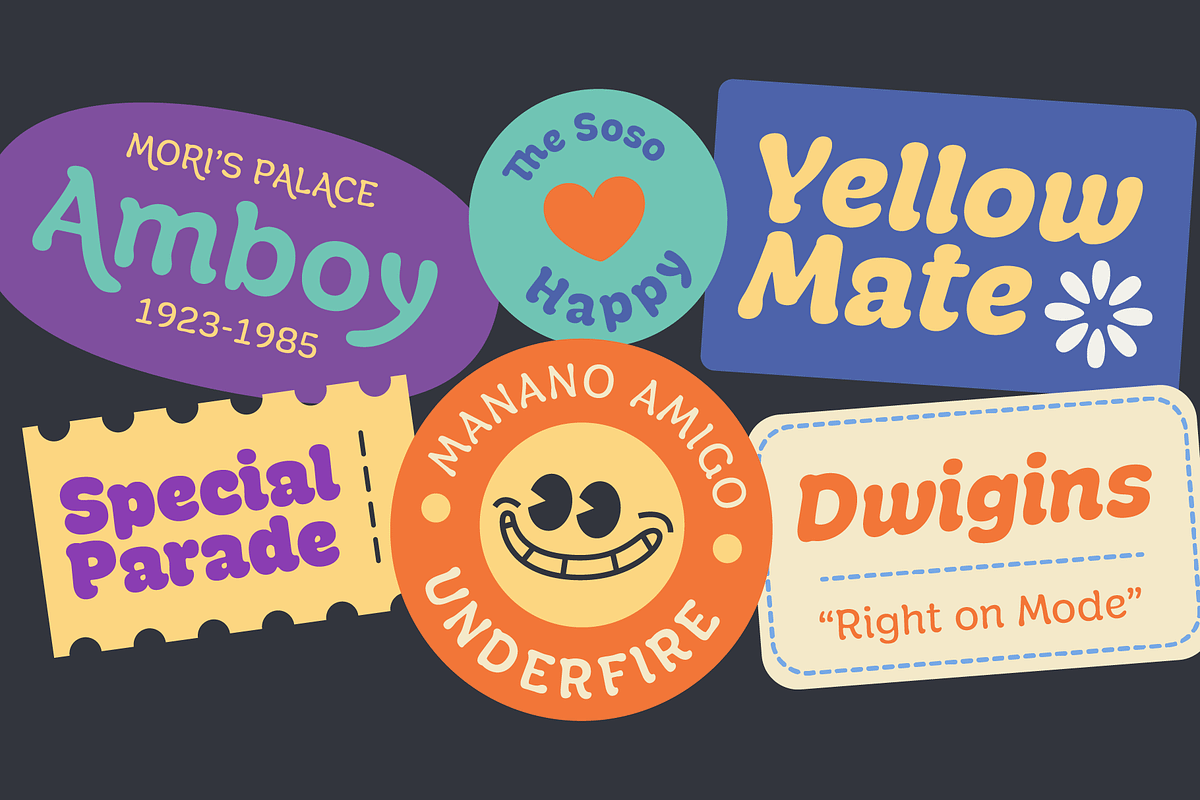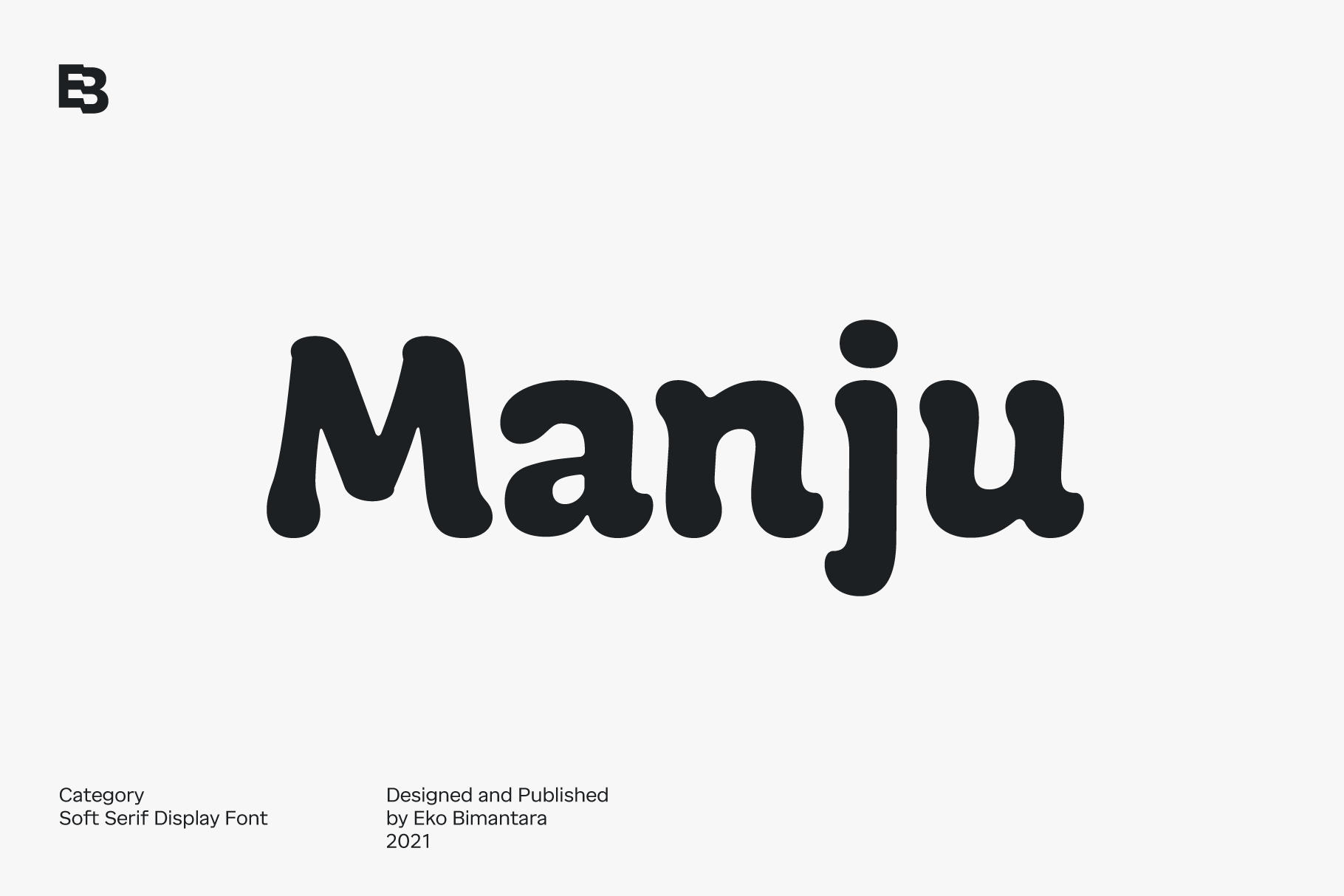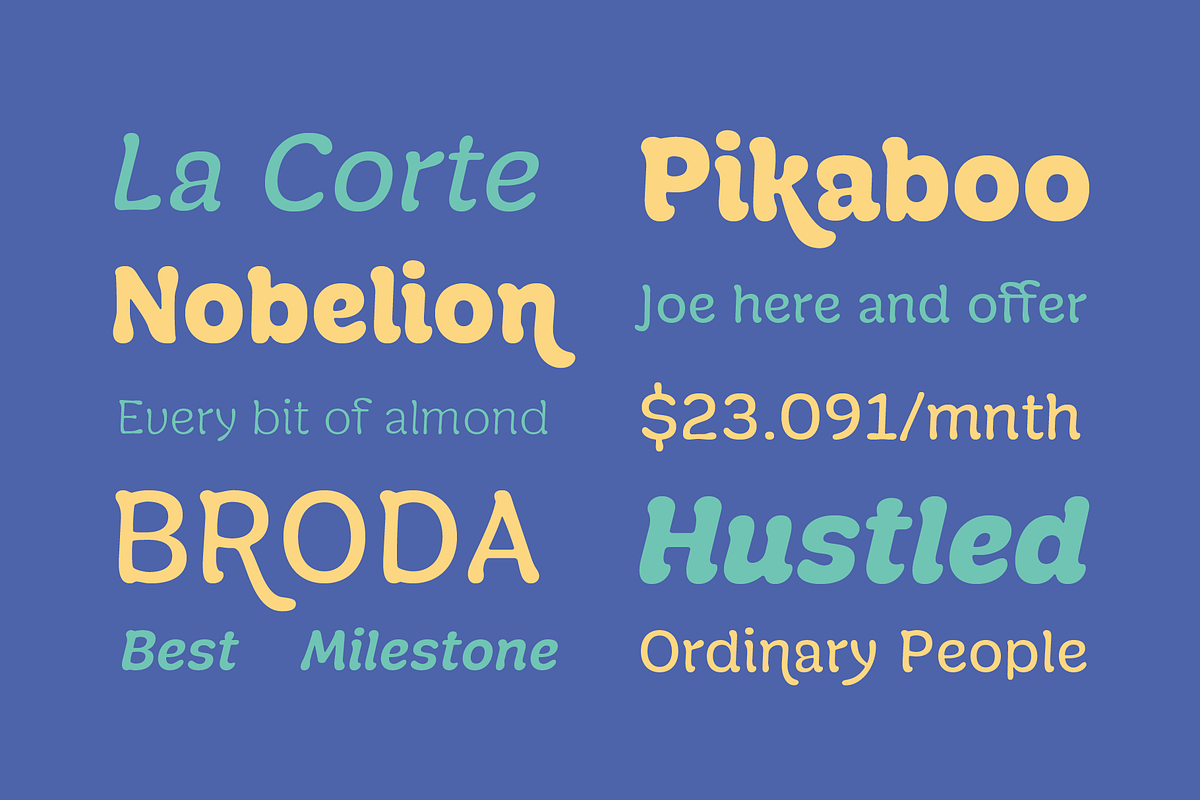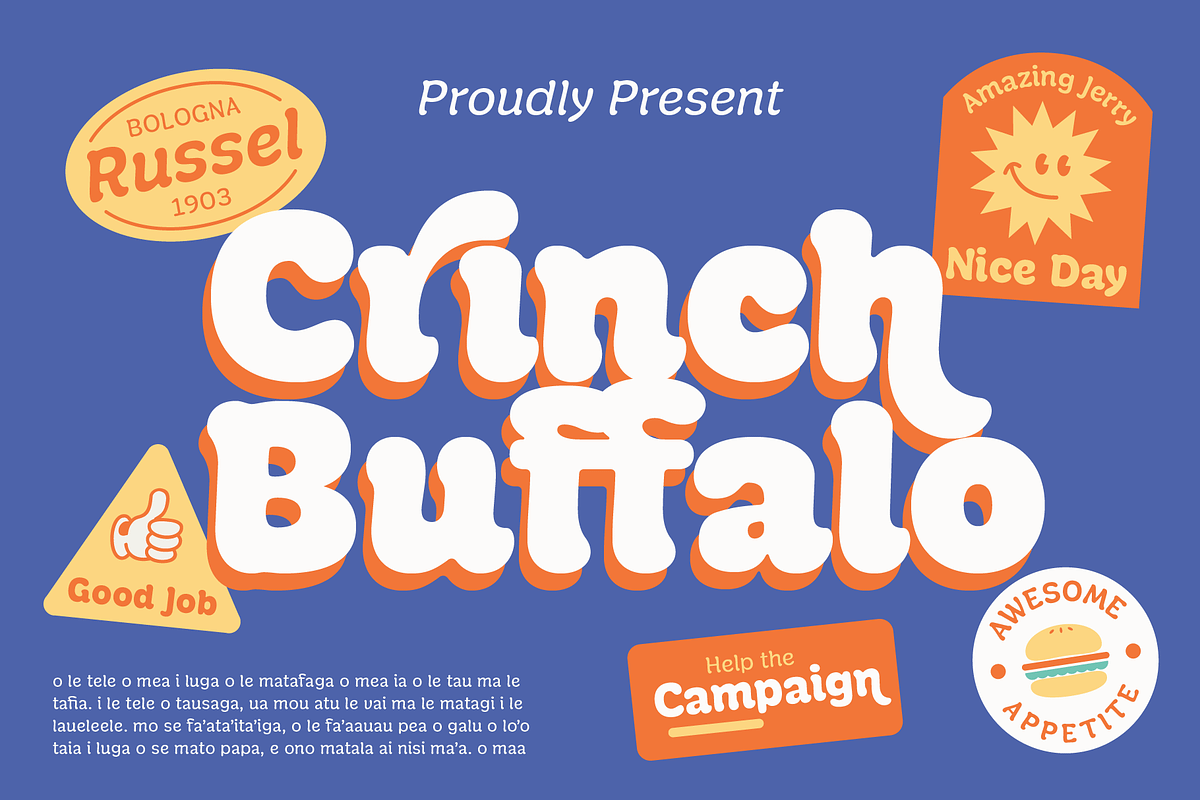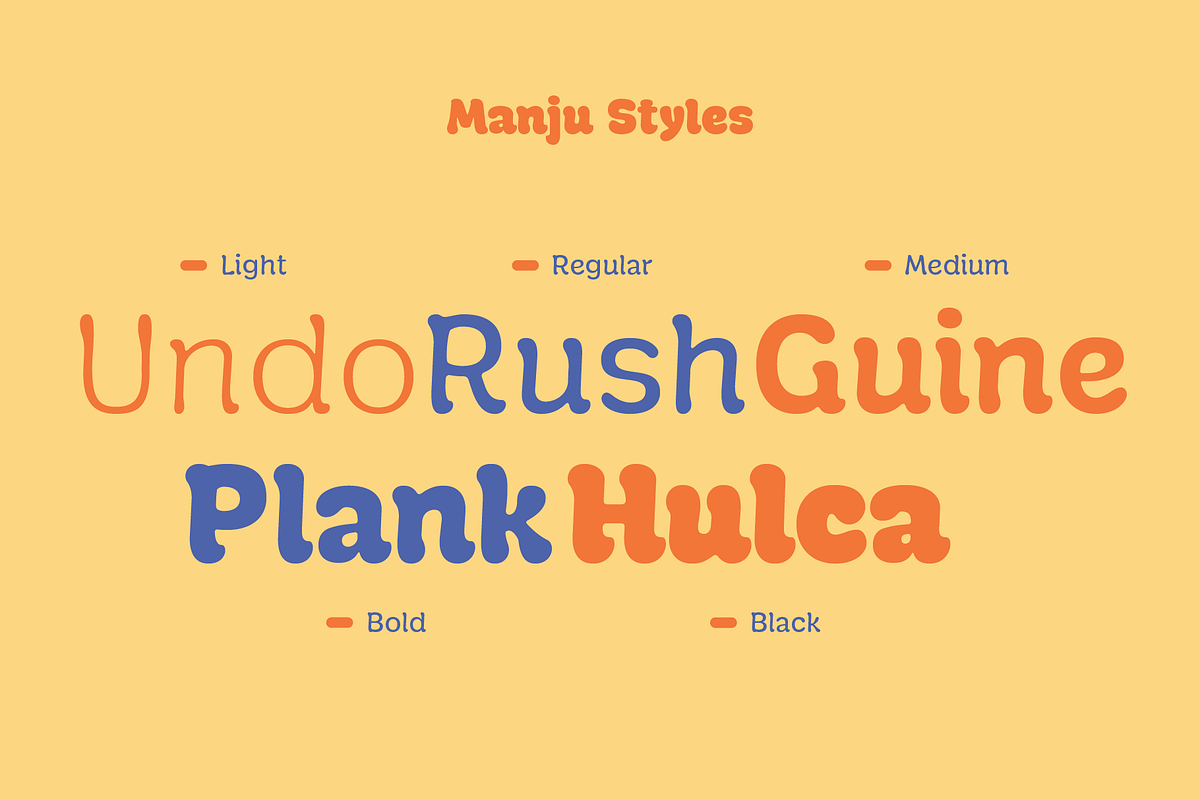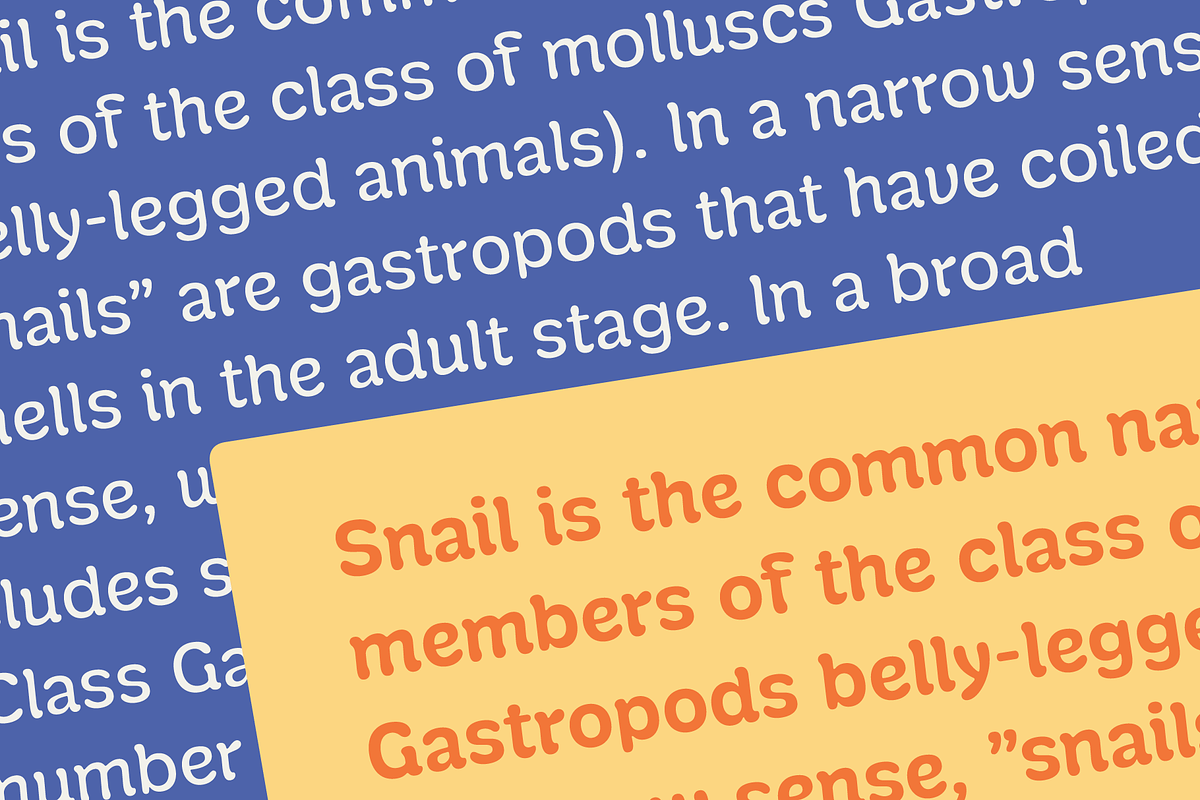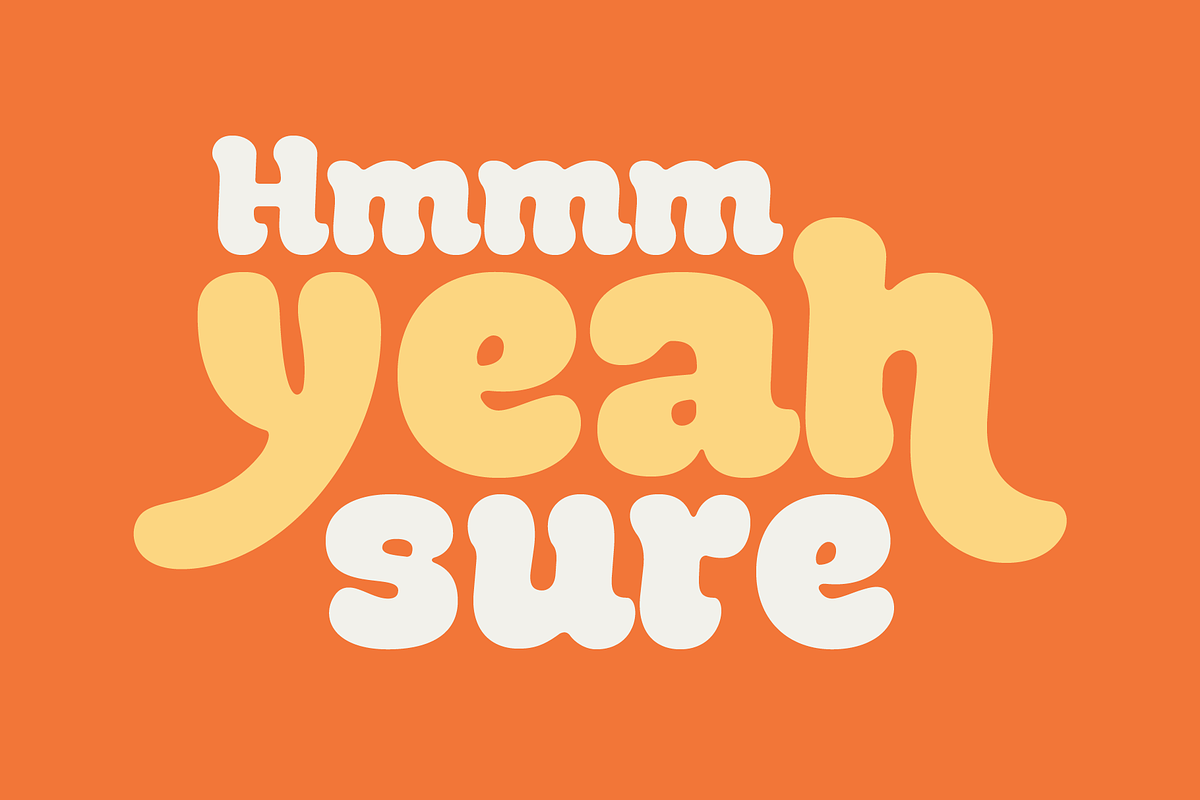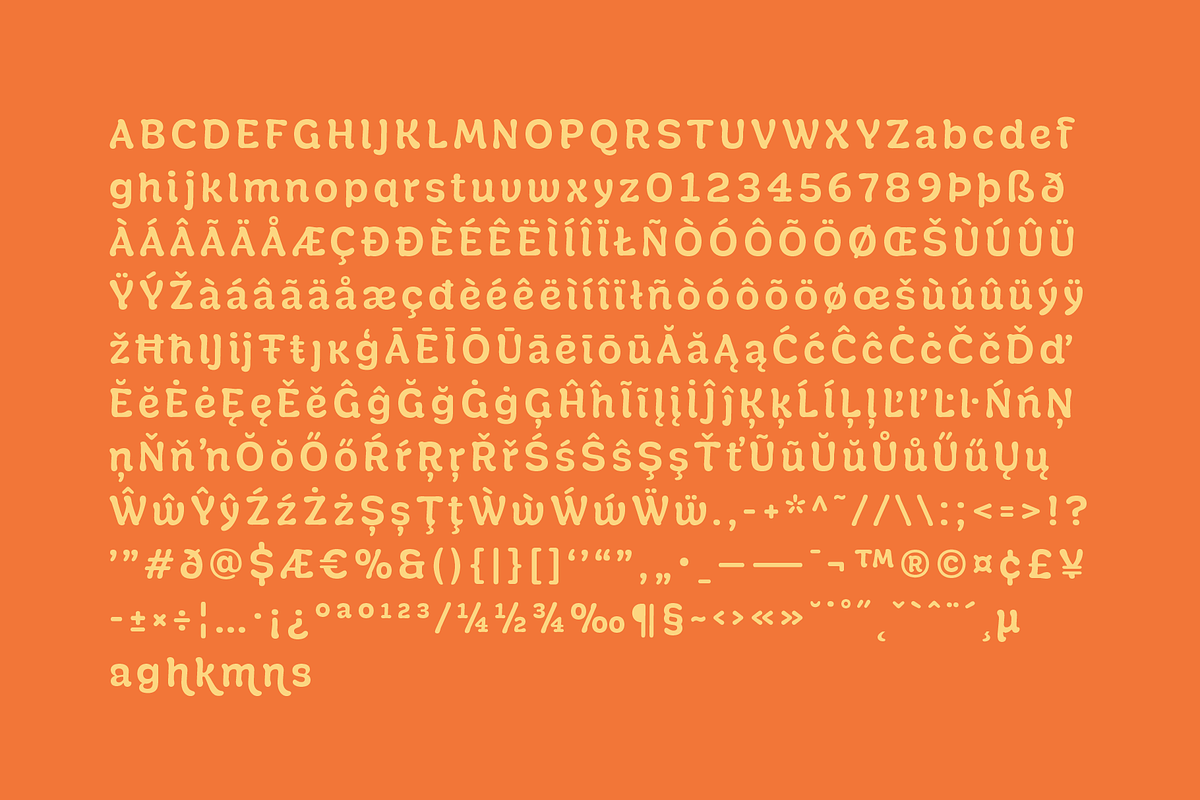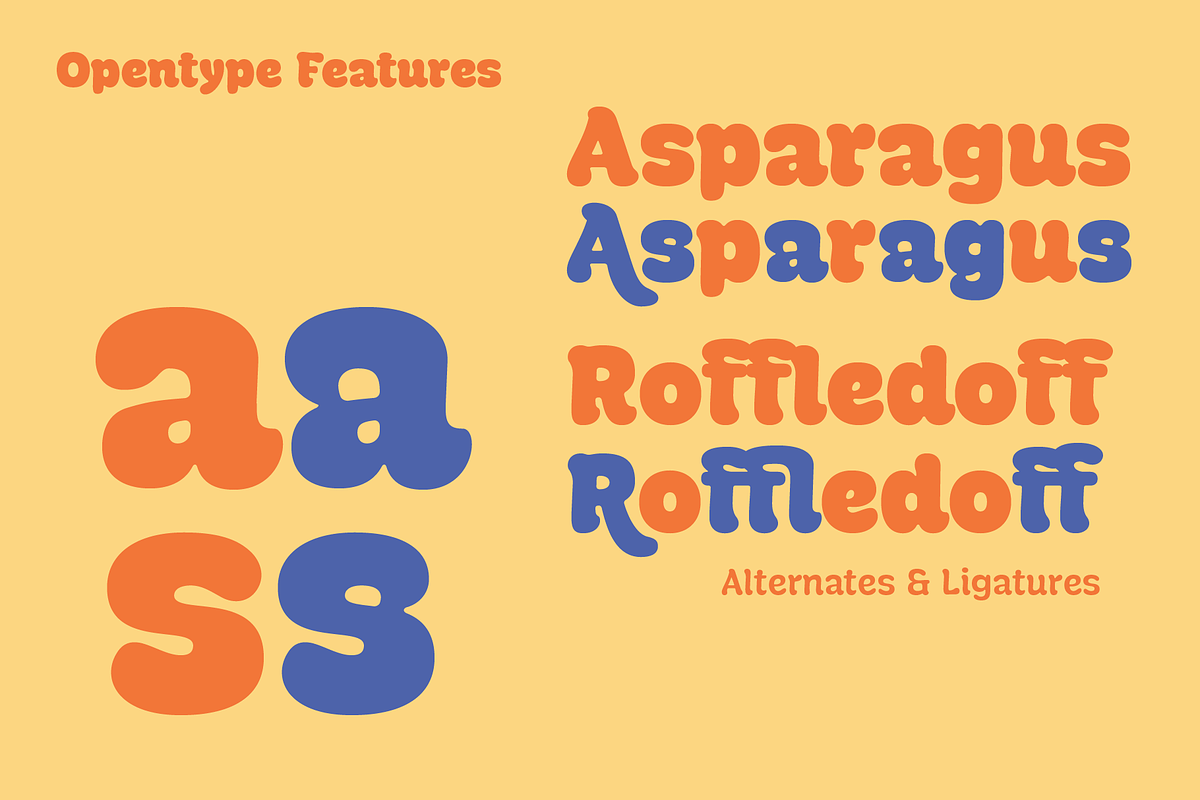
Manju; Retro Soft Display Font
Manju font family represents retro 70s styles which have soft and chewy characteristics. Designed to be fit for display, titling, good for logo, header, and large size usage. The light styles can be also used for short text. It consists of 10 styles from thin to black with matching obliques. It has several opentype features such as alternates and ligatures, it also supports broad latin languages.